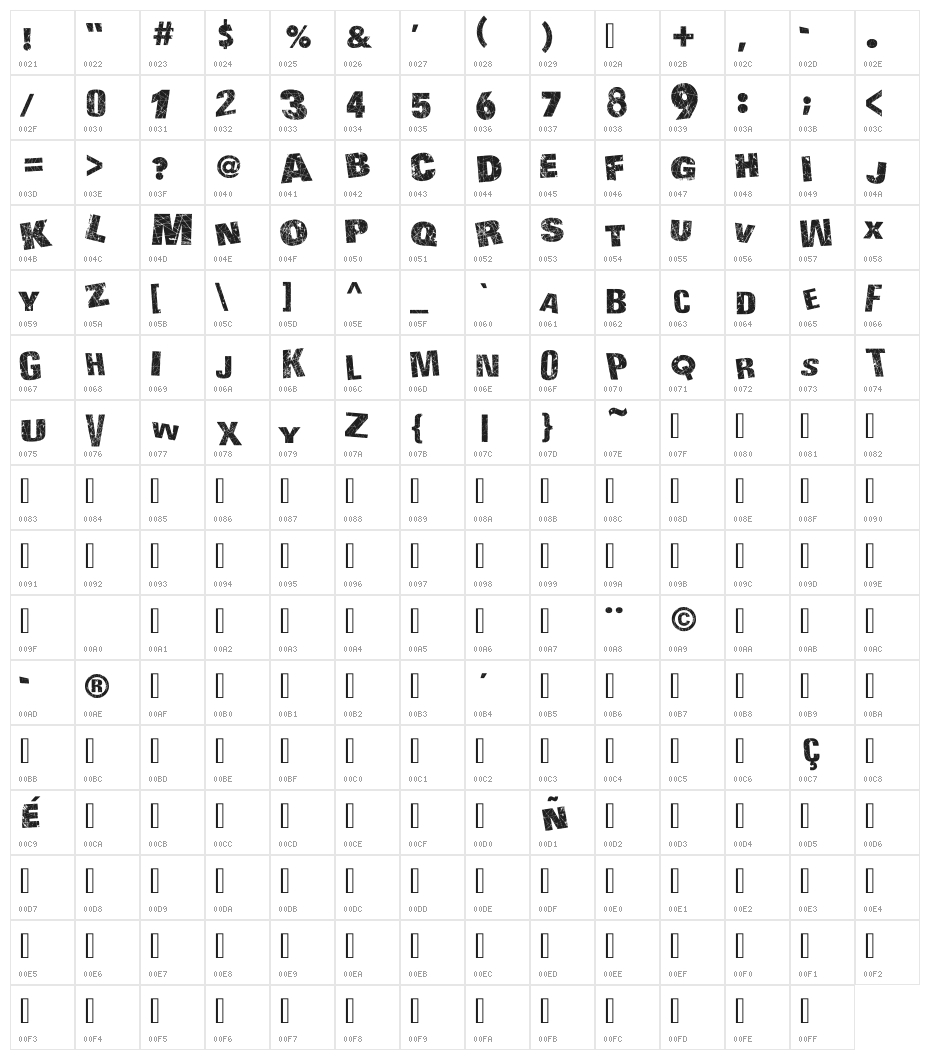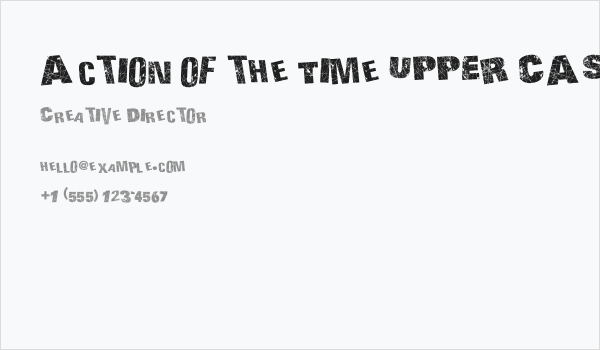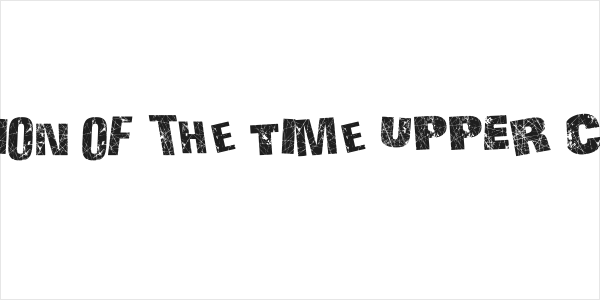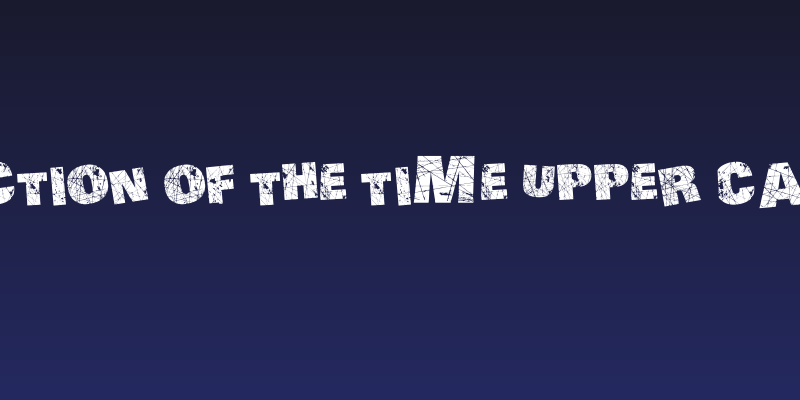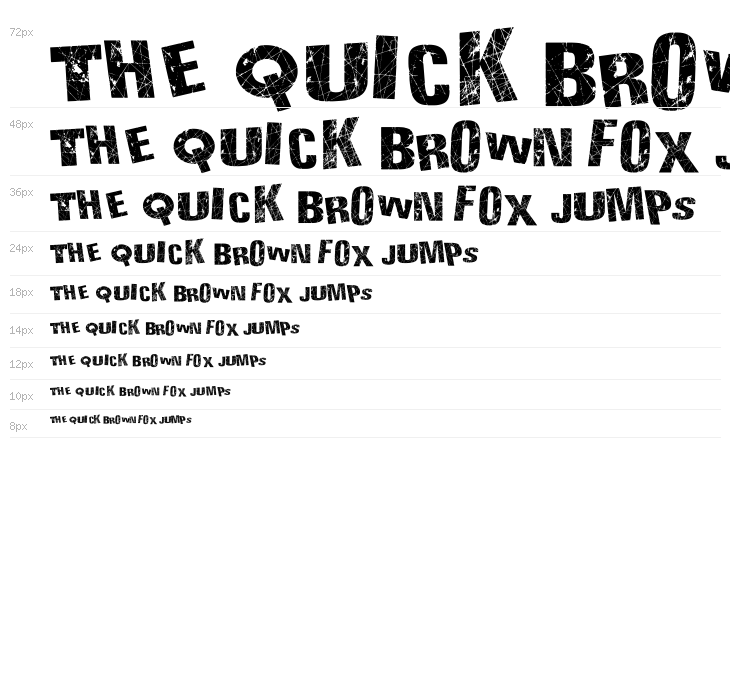
Action of the Time UPPER CASE Font
Action of the Time UPPER CASE Description
This font features a bold, distressed style with a cracked texture that gives it a rugged and edgy appearance. Each character is uniquely designed with irregular edges and a high level of detail, making it stand out in any design. The uppercase and lowercase letters maintain a consistent style, while the numbers and special characters complement the overall aesthetic. The font's boldness and texture make it ideal for projects that require a strong visual impact, such as posters, album covers, or branding for edgy products.
| Proposed Projects | Ideal for posters, album covers, branding for edgy products, and any design requiring a strong visual impact. |